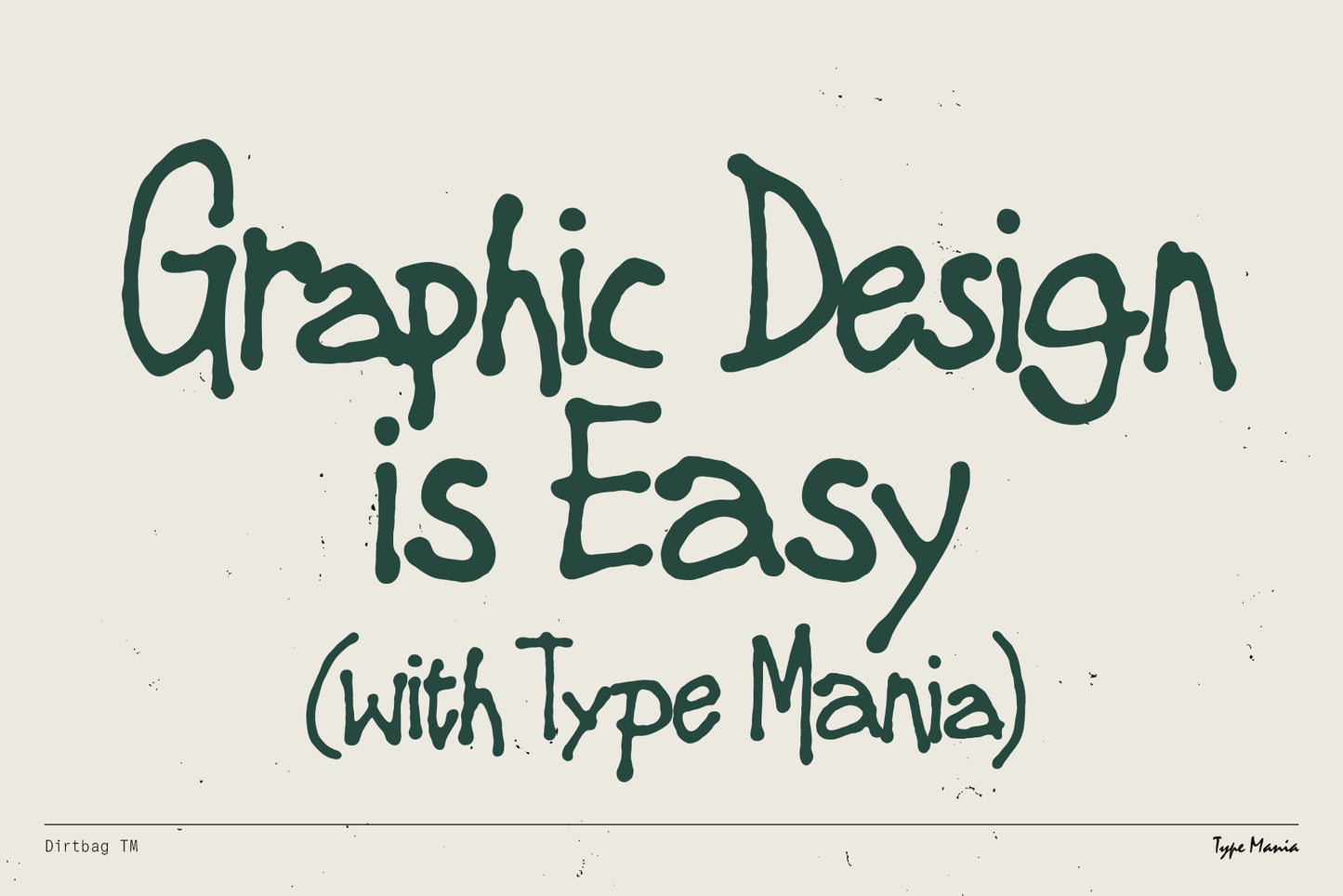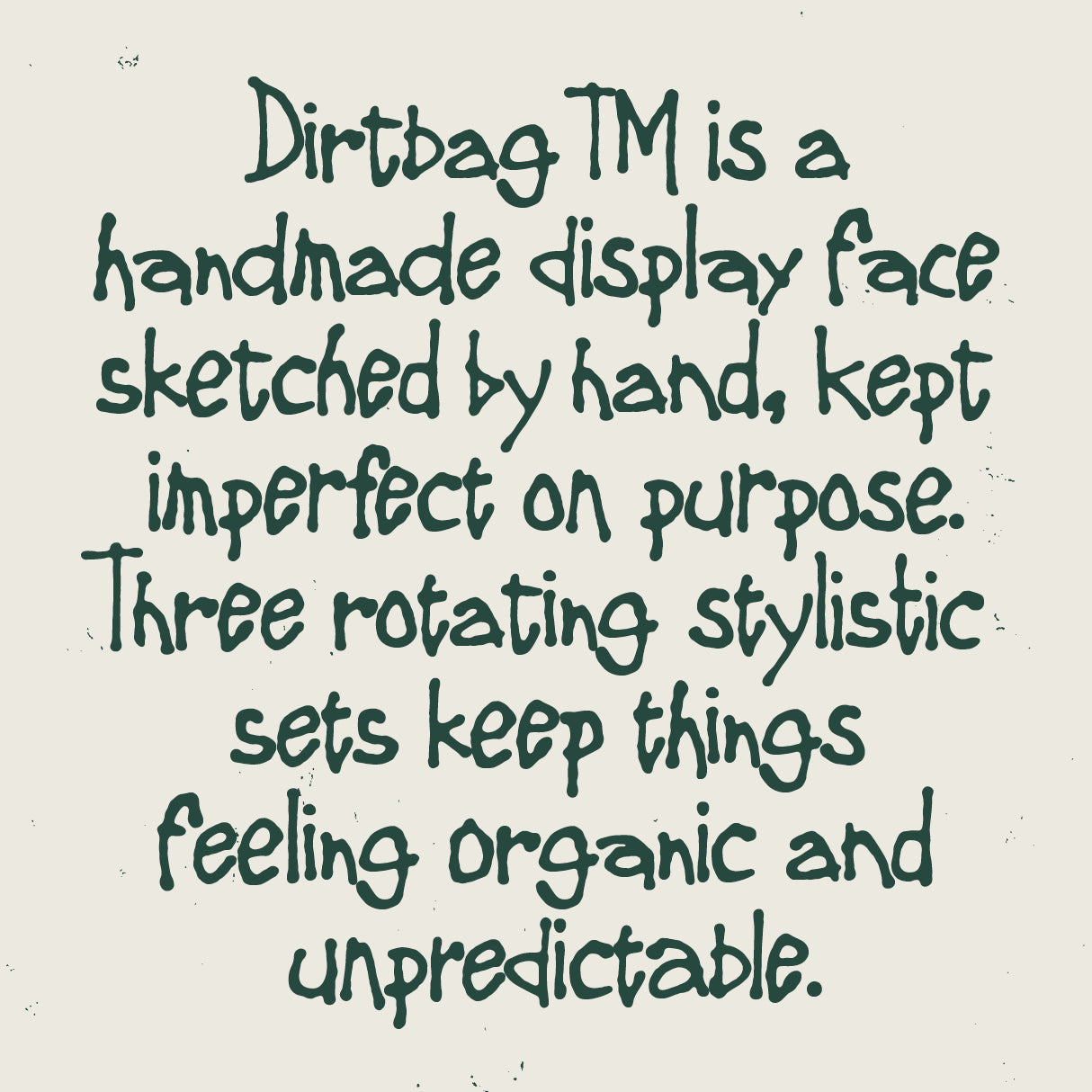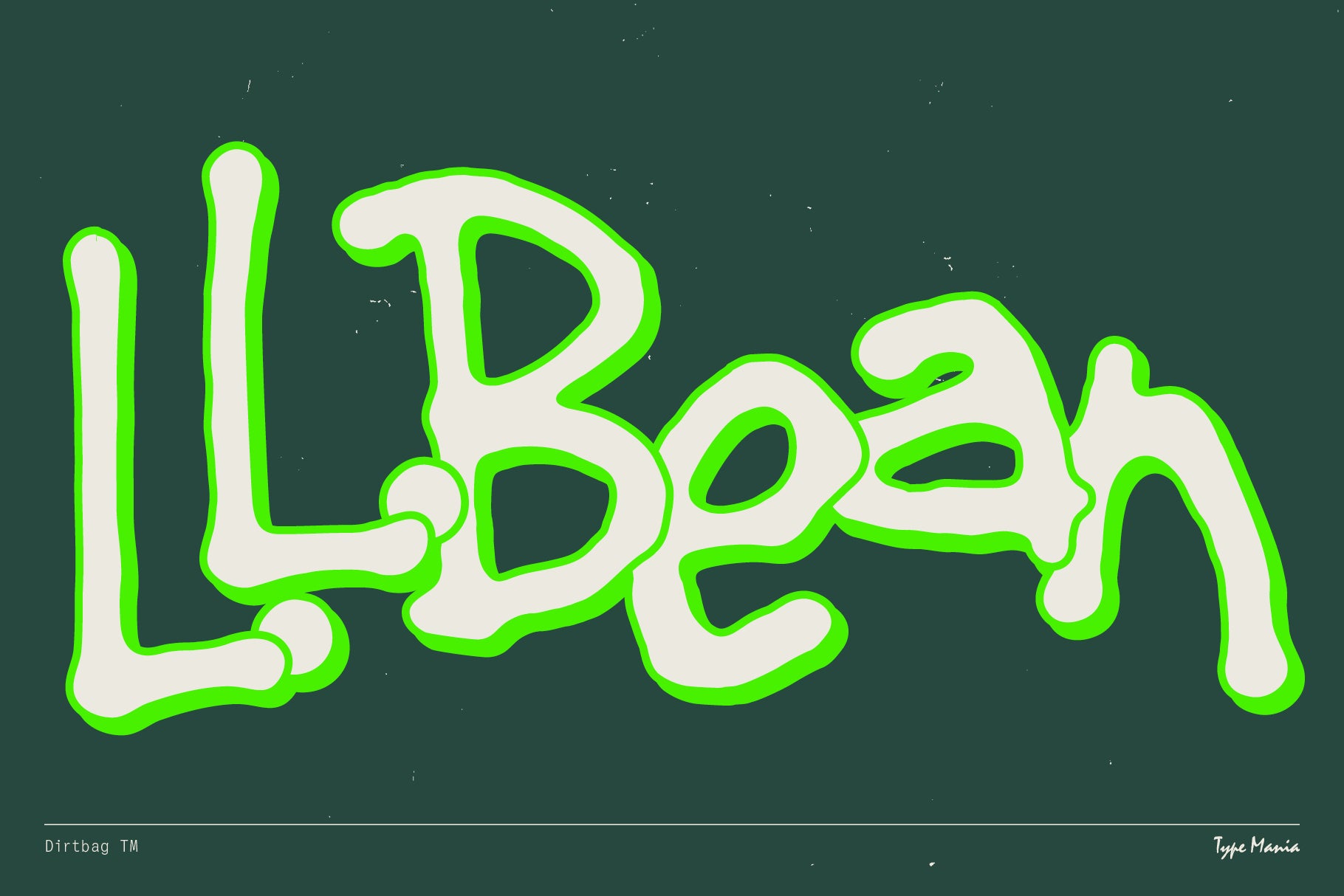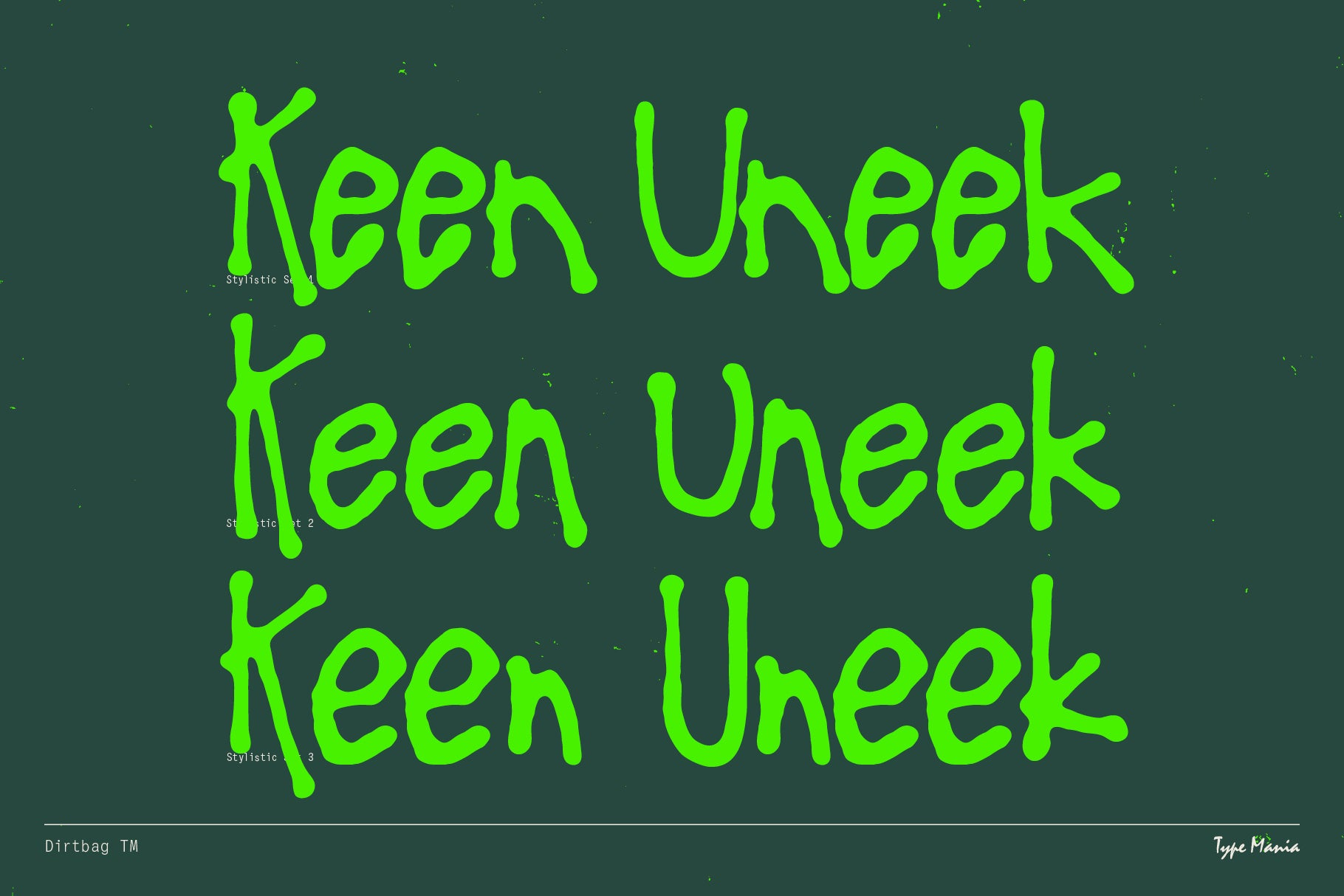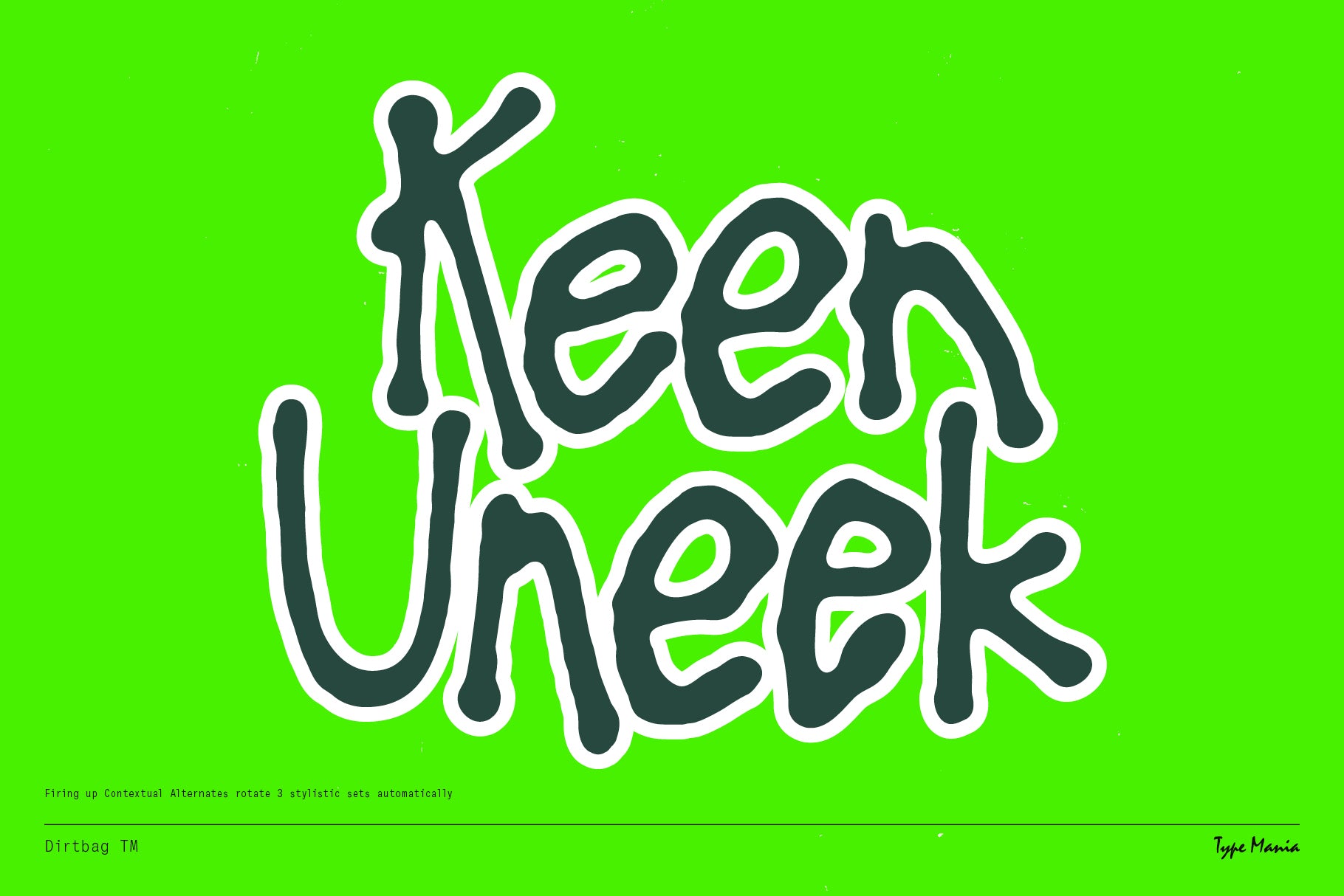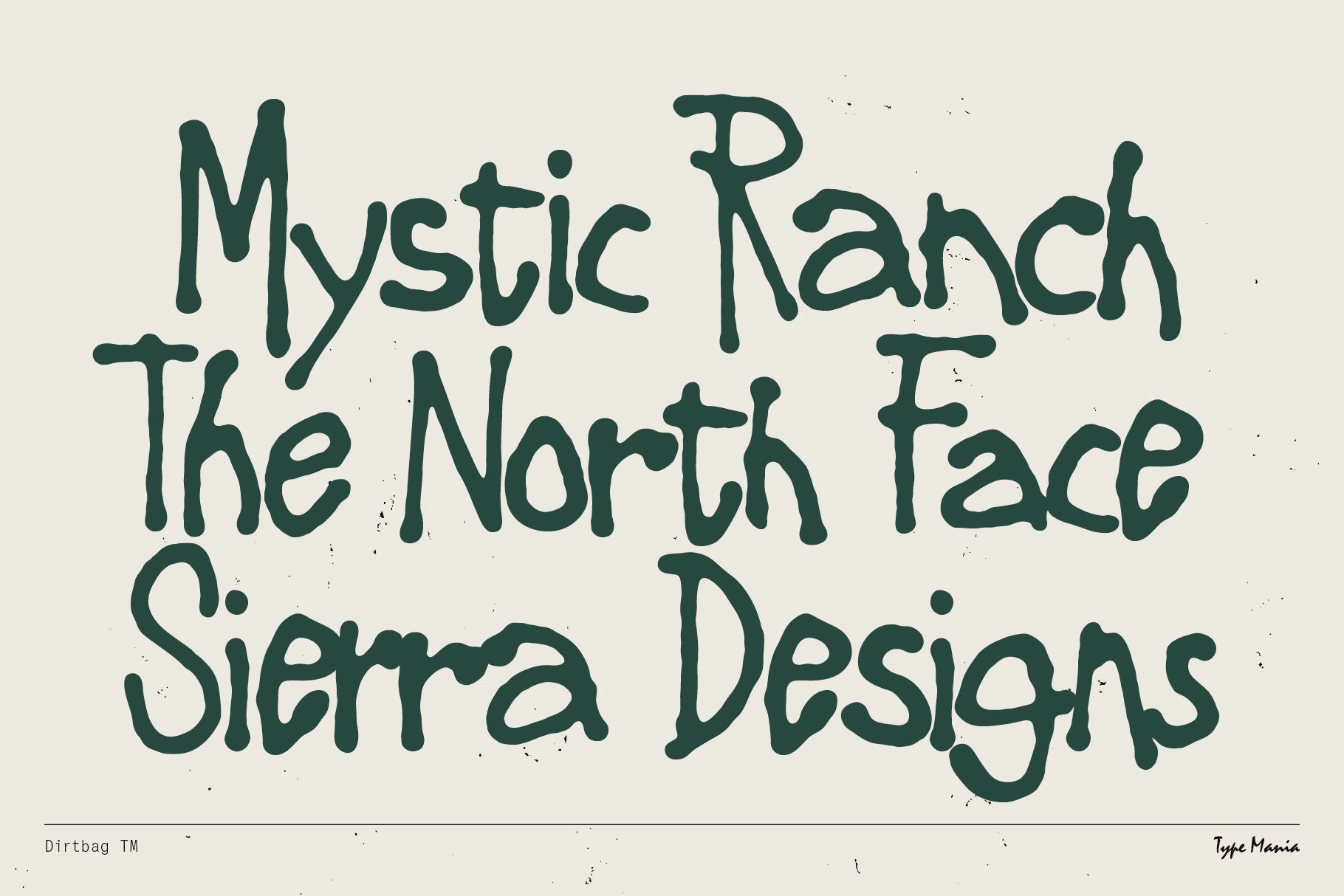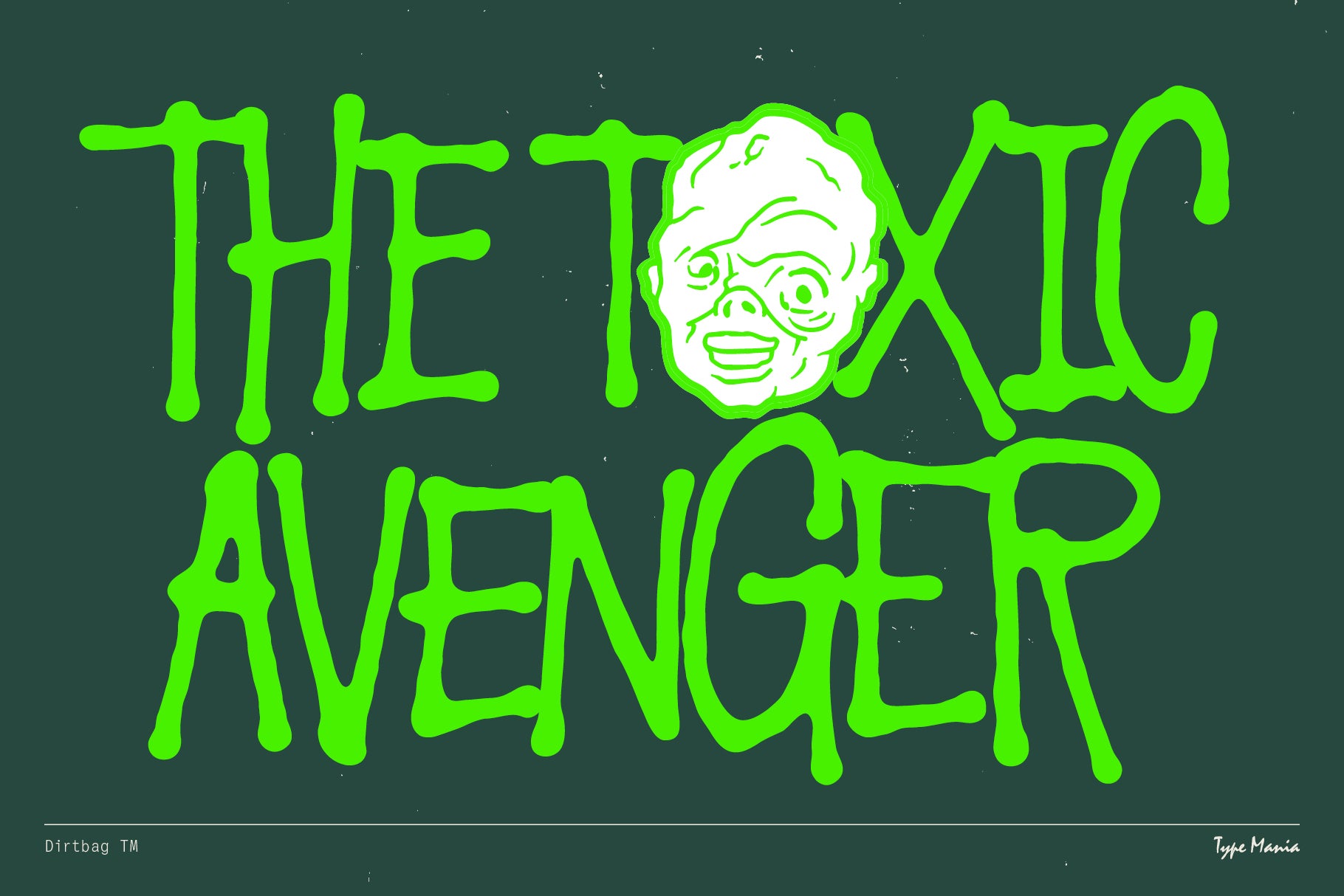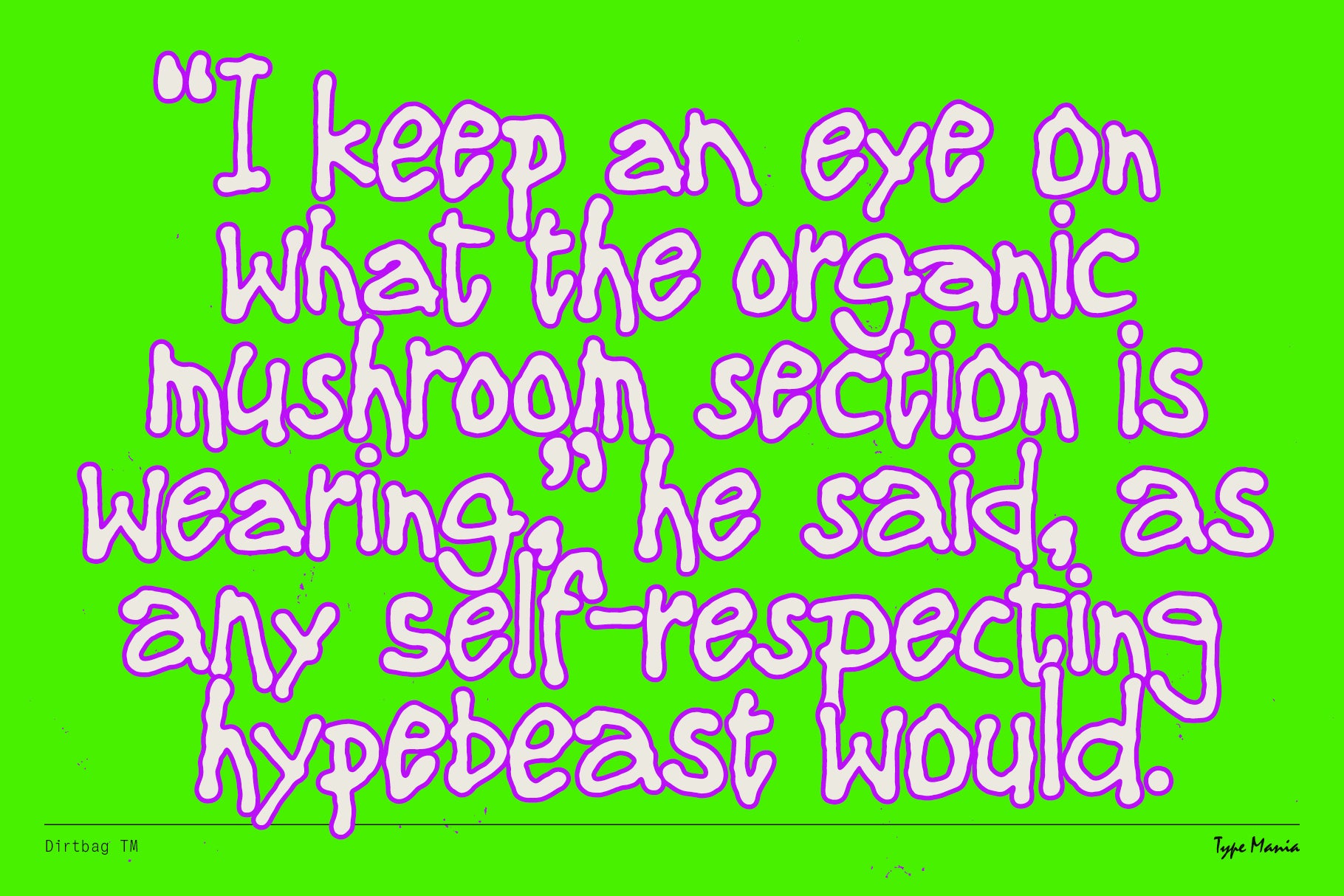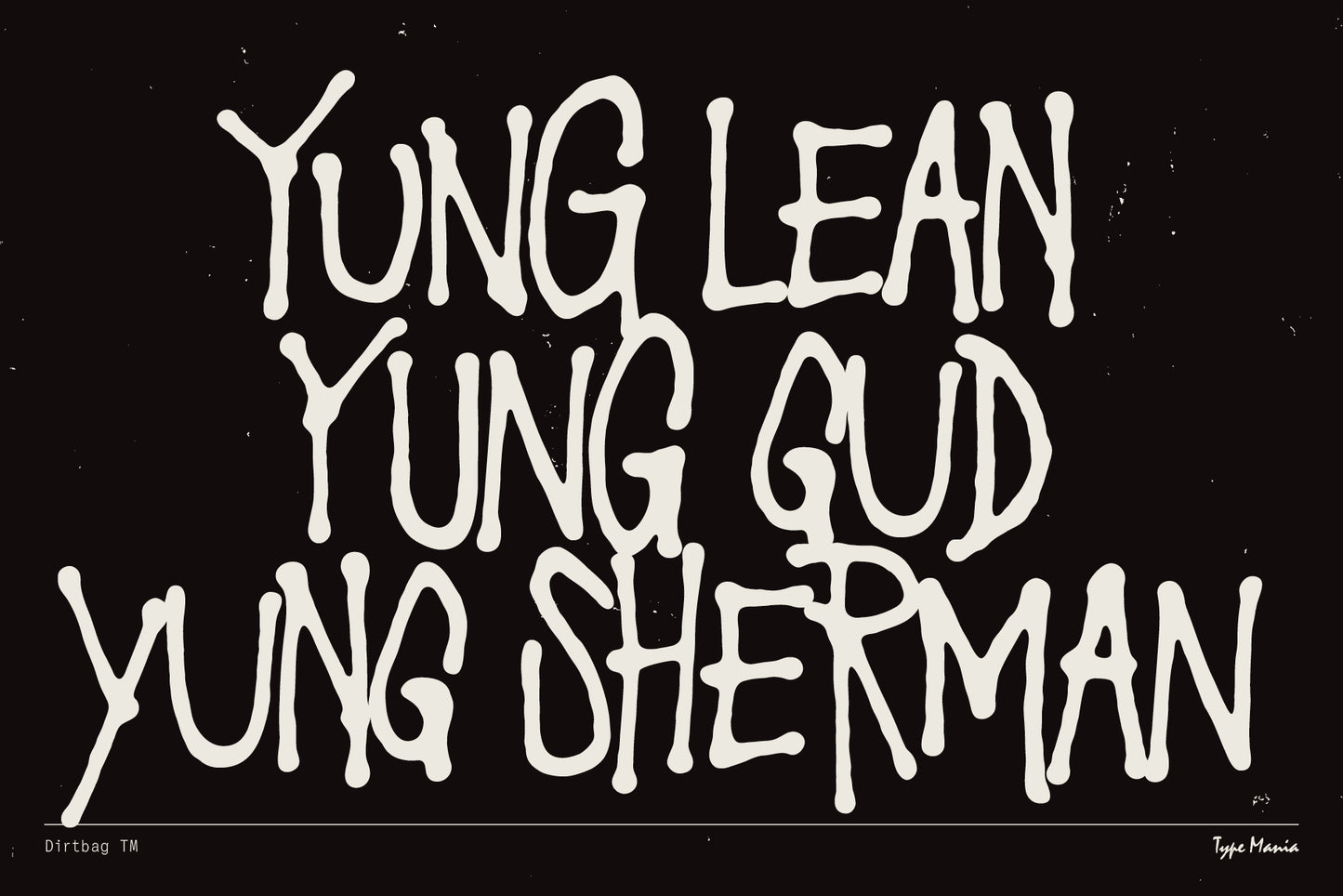
Dirtbag TM
Dirtbag TM is a handmade display face, sketched by hand and kept imperfect on purpose. Switching on contextual alternates rotates three stylistic sets in a 1-2-3-1-2-3 pattern, creating an organic texture for both paper and pixels 🫡
- 3 stylistic sets
- The font is programmed to automatically shift between the stylistic sets